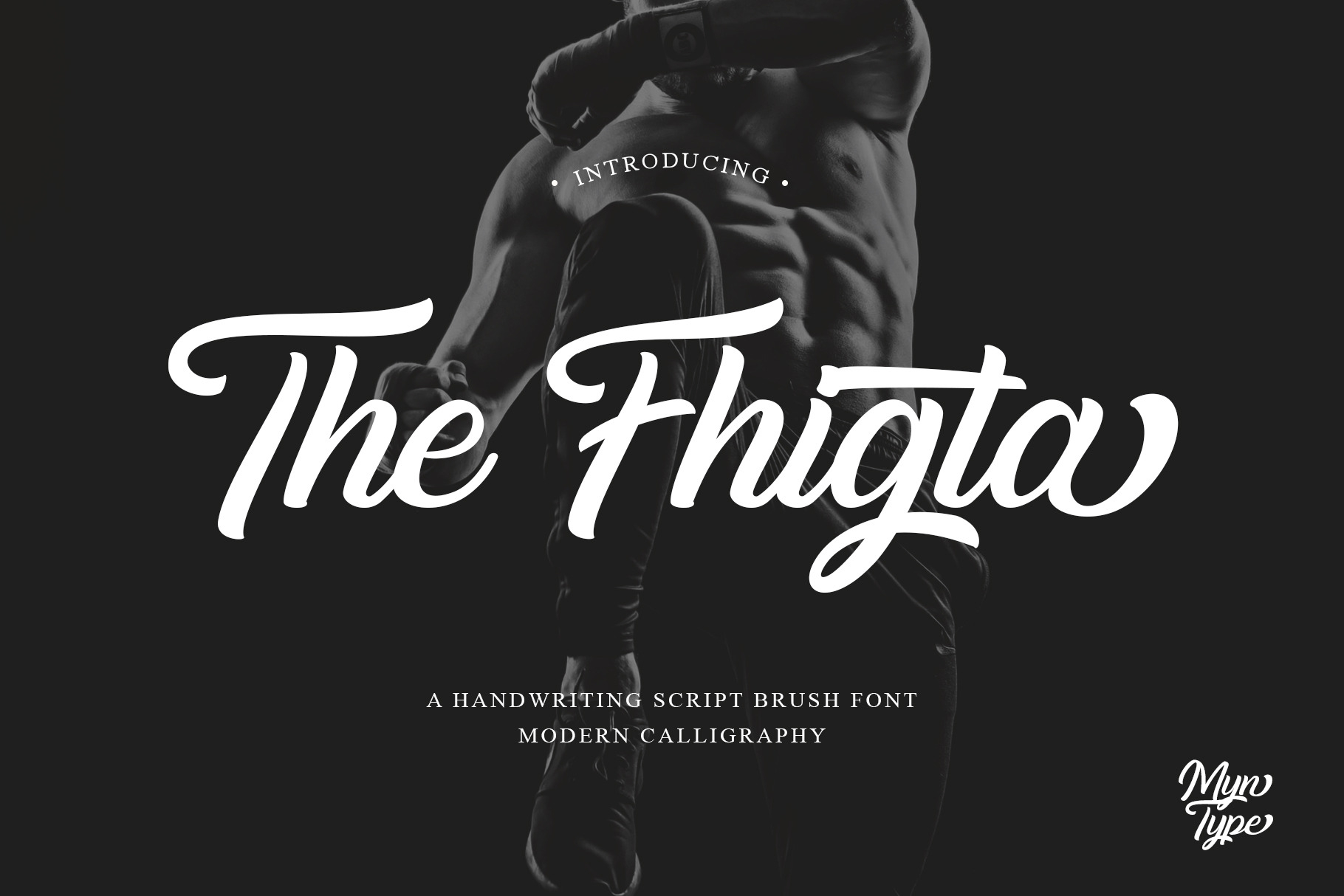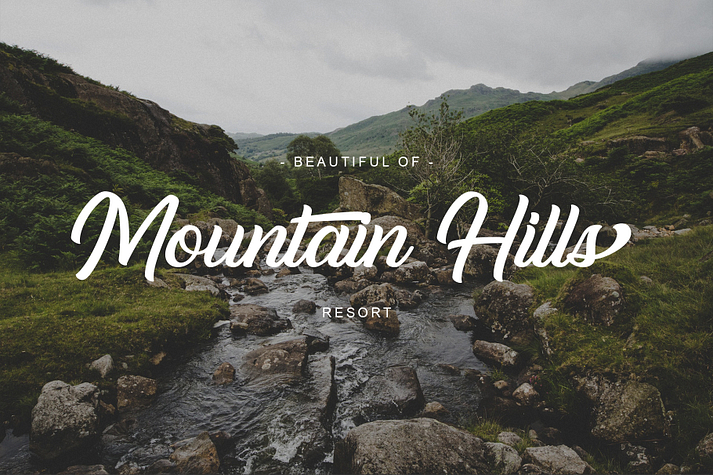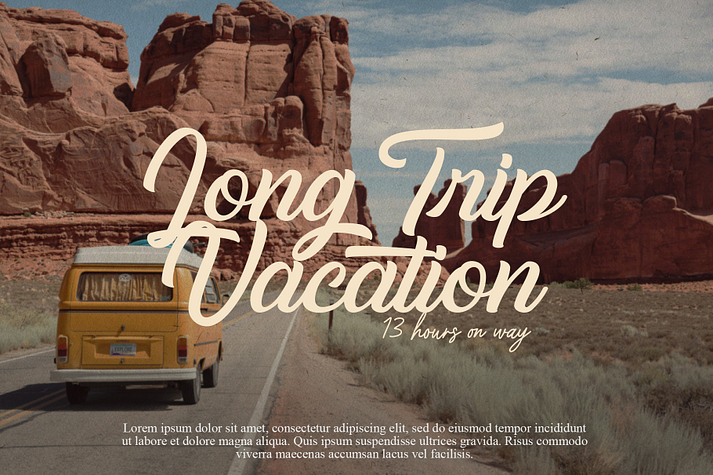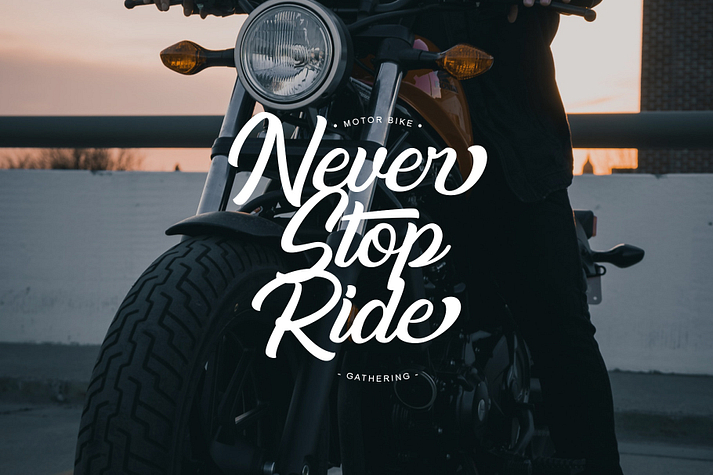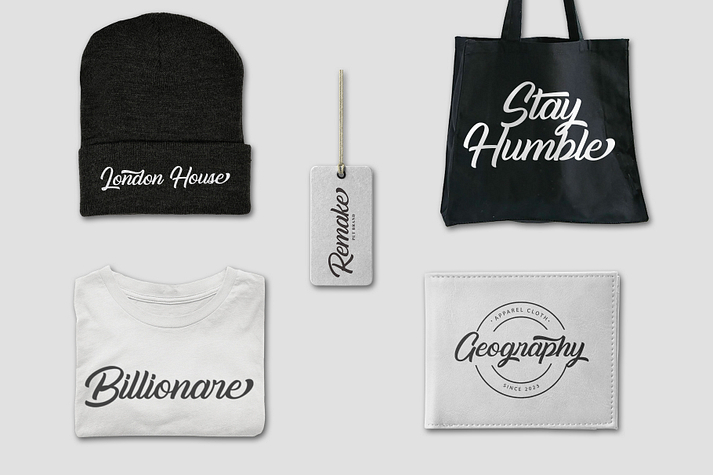
The Fhigta
The Fhigta is a font family published by Myn Type.
The Fhigta is Handwriting script brush font. Created with consistent and stylish neat strokes, Include the alternate letters make it more stylish. It is suitable for logos, titles, t-shirts, packages and where ever you need the stylish script font.